Rezak’s concrete soul, by Anya Danilova
Anya Danilova ’s Rezak font family has a concrete soul dressed up in light-hearted clothes. It is readable and perfect for packaging, brands, children’s books, and in large formats like album covers, posters, call-outs, and gaming. And don’t forget the Black and Black Incised versions for the heaviest impact. We reconnected with Anya to see what kind of impact Rezak’s design and release had on her.
Rezak is your 2019 KABK graduation project. How much does the final Rezak family differ from the original version?
To me it’s almost two different typefaces! But to a normal person’s eyes I imagine it changed, but not that significantly. It evolved and became more elaborate, but I hope it still has its rough-cut soul.
During our first conversation two years ago, you mentioned you could tweak your typefaces forever. Are you satisfied with the final version of Rezak? Were you ready to let it out of your hands when it came time to release it?
I think most type designers feel that, “One cannot simply finish a typeface”. At the time of release, I wasn’t ready to let it out of my hands, indeed, but that’s where the external deadlines help a lot. If I hadn’t had a scholarship and a vague plan of “correct–test–publish” with it, Rezak would probably still be collecting dust in my archives and I would keep telling myself, “It’s not ready yet,” for the rest of my life. Publishing is a good staging point, like a “Push changes” option on git.
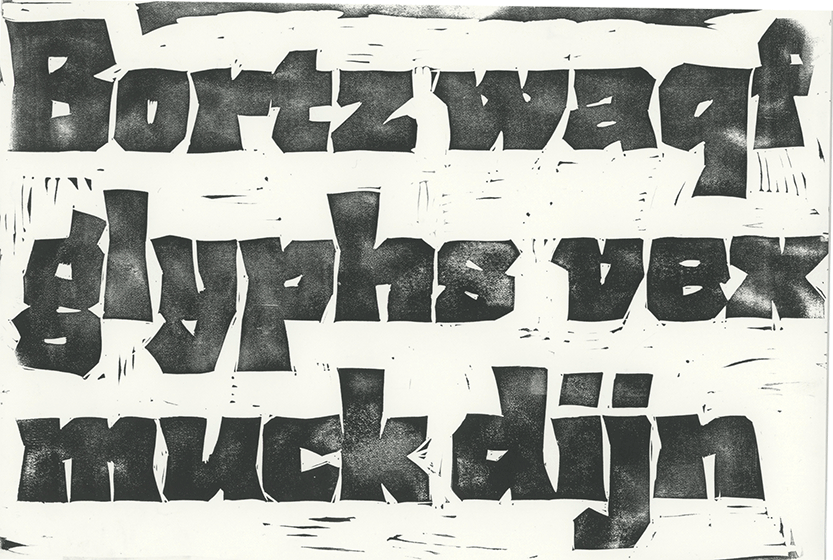
What was the thing that surprised you most during your Gerard Unger Scholarship?
The thing that didn’t surprise me but rather fascinated me and helped me most was the unity and support of everyone. There were tough moments for me that affected my work and deadlines — in those moments I got nothing but support from all the people from TypeTogether. And with external support, it’s usually easier after a fall to stand up and start again.
Since you mention the team, the work of font engineers is enormous in every type design project. Was this also the case for Rezak?
In terms of a family size and styles system, Rezak is not really a complicated project. But it does have crazy outlines: there are more nodes that don’t align horizontally or vertically than nodes that do. So from the technical point of view, my work with outlines is a horror that I knowingly forced in order to have a vivid feeling within the characters. So there was quite some engineering work done there indeed.
When you look back at the whole process of transforming a student project into a commercially successful product, do you think you would have been able to finish Rezak on your own? Is a font’s design and production even meant to be done alone?
It certainly can be a one-person work, the question is how self-sufficient this person is. I can be lazy if it’s only up to me; I sometimes clean my apartment only if people are coming over. I enjoy working together with people on a project and it also gives me the necessary push to get the work done.
The release of Rezak stirred the design waters quite a bit. Designers mentioned that Rezak brings fresh air to the TypeTogether library. What is the main contribution or what gap does Rezak fill in the TypeTogether library?
I think we might need to wait for some time, when there’s more of an understanding on how Rezak is used. But honestly, I think this was a leap of faith for TypeTogether on behalf of Rezak. You might be tempted to call it just a peculiar display type family because of its character, but the work and treatment was comparable to a work on a “serious” text type family. And I think Rezak’s text styles work well in relatively long texts while its display styles are there to make the loudest titles. So just bringing it to the TypeTogether library feels like a little bit of a countercultural move which comes with a certain level of risk — and of course I really appreciate that!
Many of our readers don’t understand how culture and typography intersect in Russia. Could you tell us a bit about it and your decision to support minority Cyrillic languages?
I want to take a moment to try and explain an issue that highlights a cultural conflict here. Cyrillic is the name of the alphabet used in this part of the world. Russian is only one of many languages using the Cyrillic alphabet, just like Latin is the basis for English, French, German, Spanish, Portuguese, and many more.
While type design might not be the best field to speak out, I want to believe I can provide a tool for the voices that might not be as loud as they should be, for whatever reason. It would be an honour for me if Rezak would be used for that.
So my dream use would include preserving and actually using minority languages. In order to do this, I would love to have feedback on the character design of those languages in order to start filling in the gap.